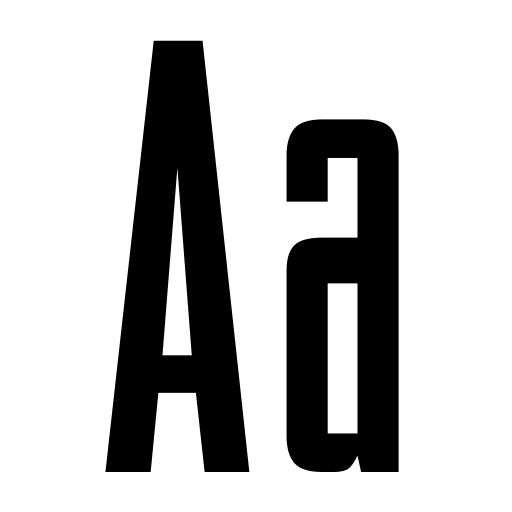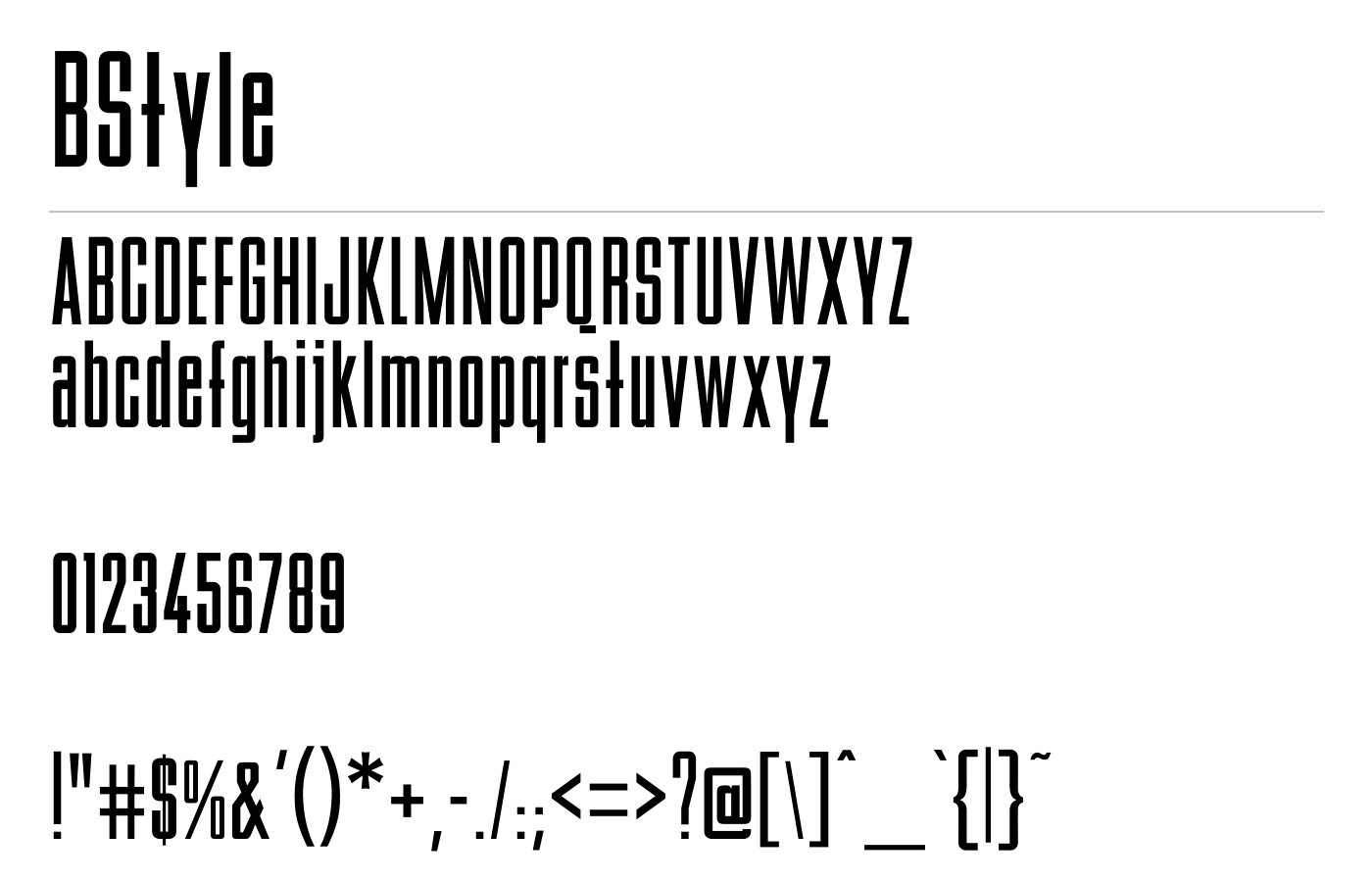
BStyle is a condensed sans serif font characterized by its tall, narrow letterforms and uniform stroke weight, giving it a modern and sleek appearance. Its clean lines and geometric shapes make it ideal for impactful headlines, branding, and editorial use where a bold, contemporary style is desired. This font works well in designs that need a strong, confident voice with a minimalist, urban feel.
BStyle Font